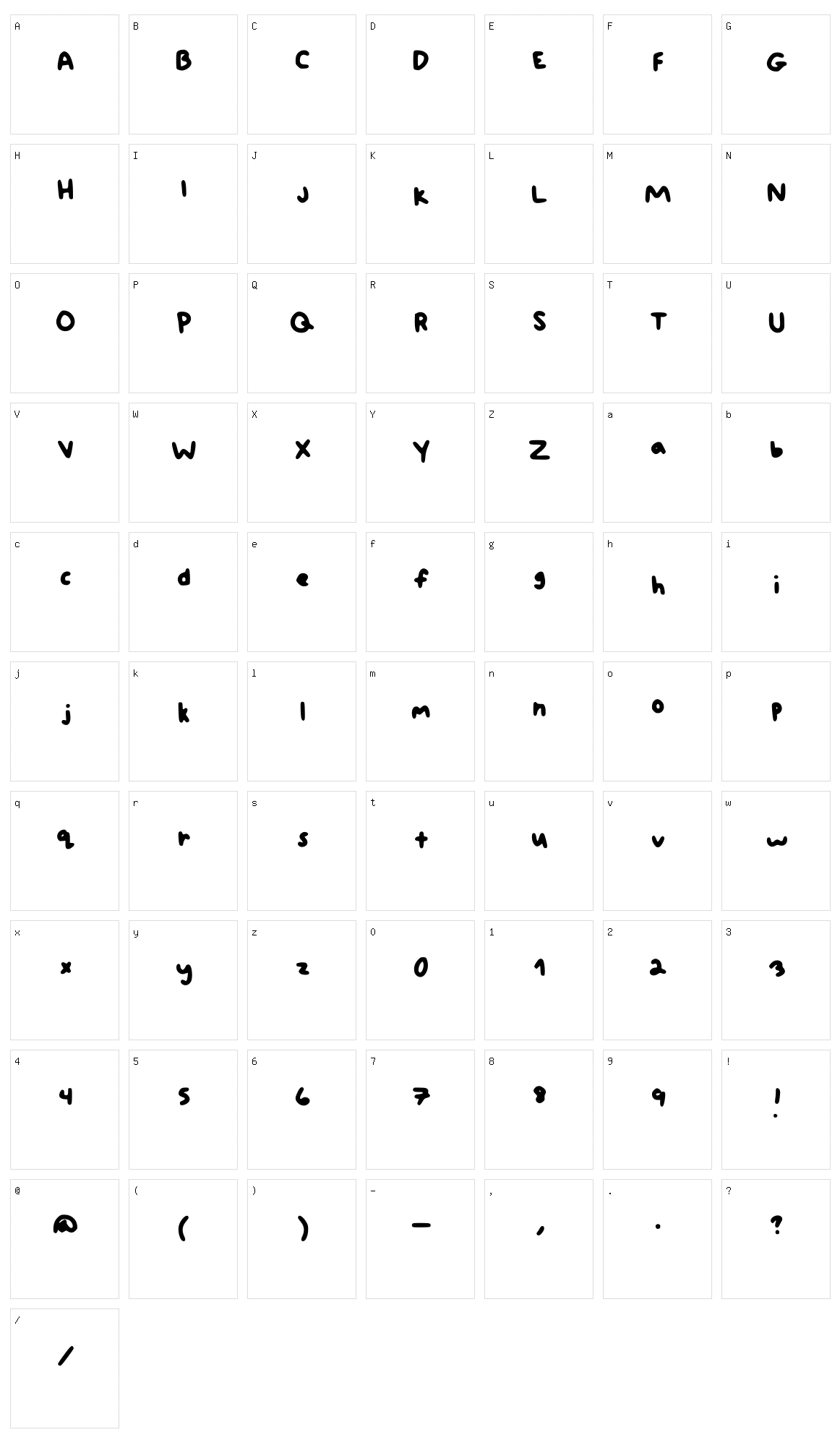
The free font Eden is carefully designed by pouwty, showcasing a thoughtful balance of creativity and usability and falls under the Script font style. When you download the ZIP file, it contains only 6.55 KB of font files, making it lightweight and quick to download. Please review the license details below to understand permitted usage and distribution rights. If license information is not available, we recommend using this font for personal projects only or contacting the author directly for commercial usage permissions.